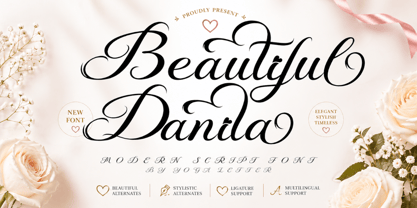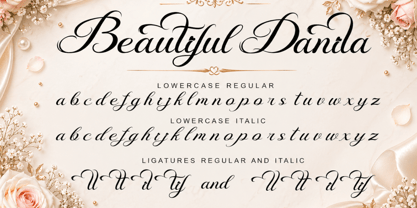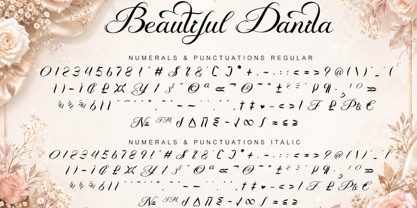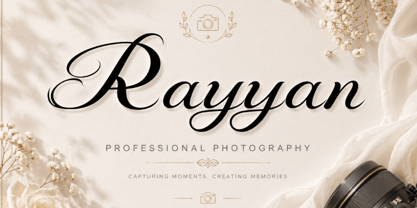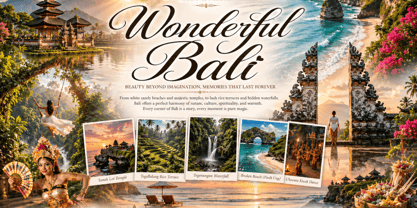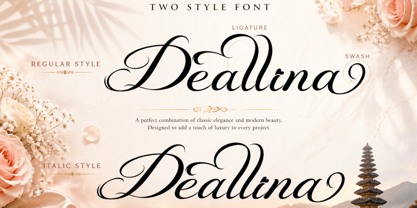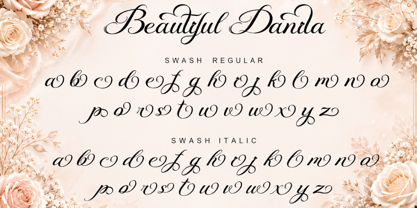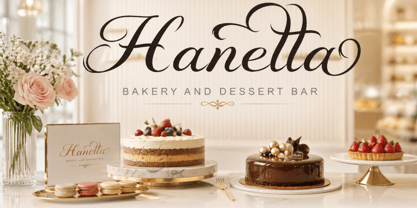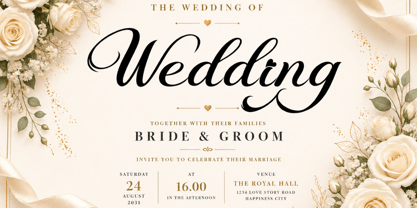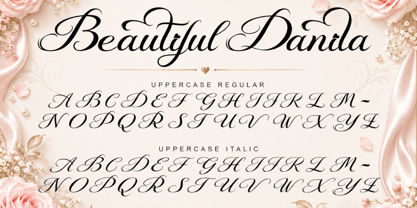
Beautiful Danila Italic
by Yoga Letter
The Beautiful Danila Italic Font Family was designed by Isroni Yoga Prasetya and published by Yoga Letter. Beautiful Danila Italic contains 2 styles and family package options. More about this family
"Beautiful Danila" is a beautiful and elegant handwritten font. It comes in two styles: regular and italic. It features uppercase and lowercase letters, numerals, punctuations, alternates, swashes, and multilingual support. It's perfect for invitations, certificates, advertisements, photography, weddings, Christmas, business logos, banners, posters, branding, summer, holidays, and more.
Designers: Isroni Yoga Prasetya
Foundry: Yoga Letter